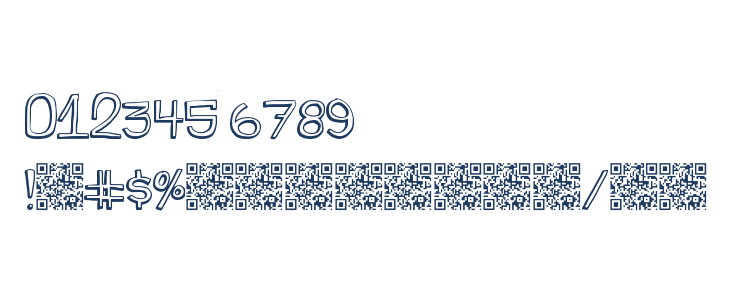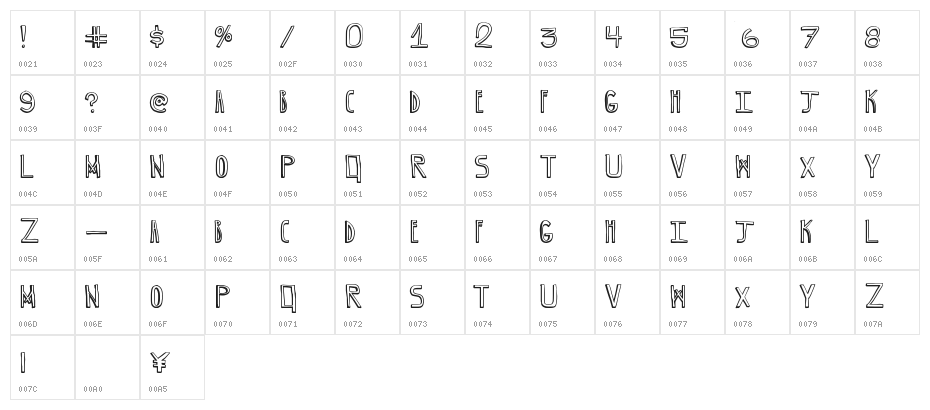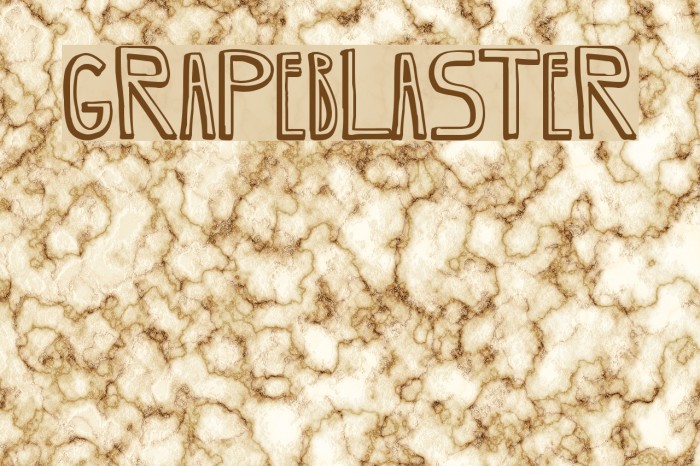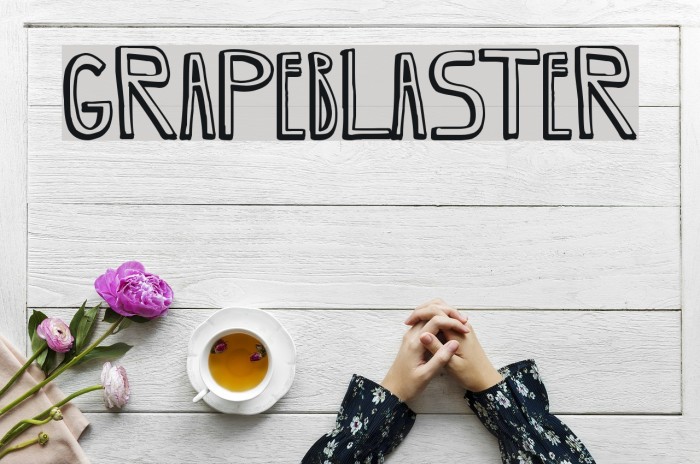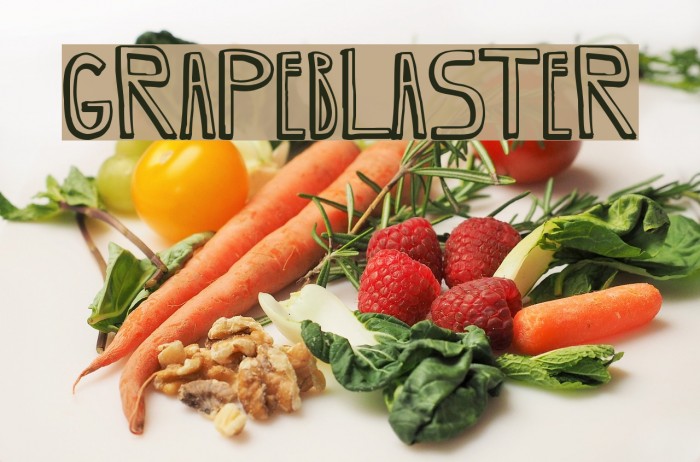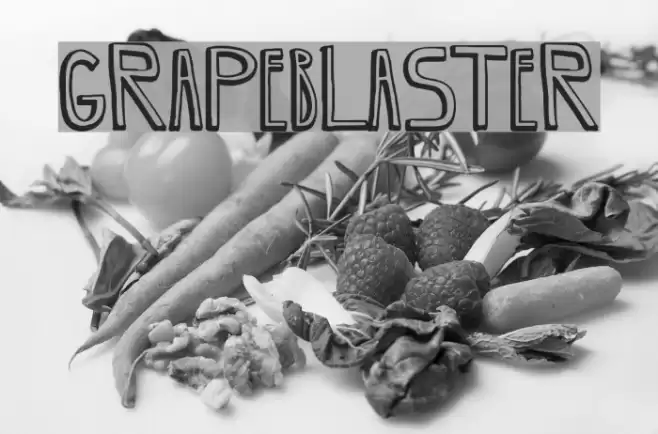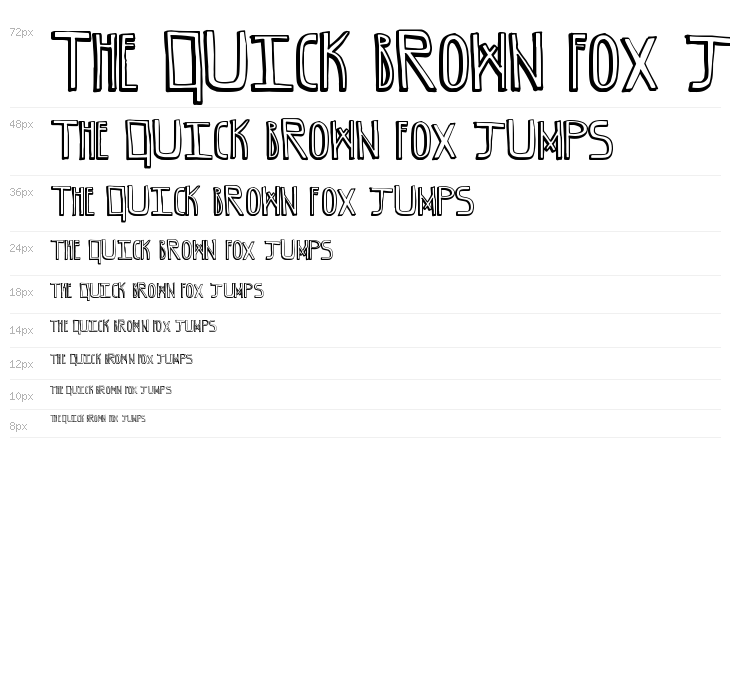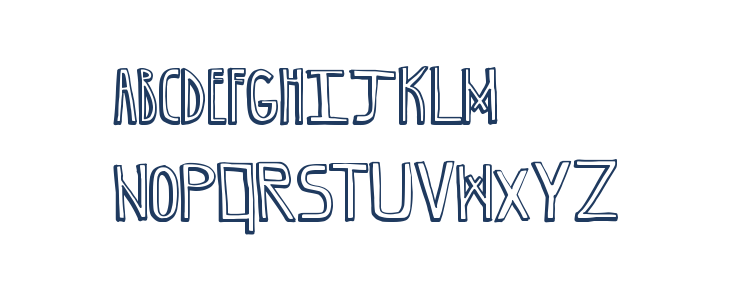
GrapeBlaster Font
GrapeBlaster Description
This font features a playful and quirky design with a hand-drawn aesthetic. Each character is outlined with a bold, uneven stroke, giving it a casual and informal appearance. The uppercase and lowercase letters maintain a consistent style, with some characters exhibiting unique and creative variations, such as the letter 'W' which appears with an overlapping design. The numbers and special characters follow the same whimsical style, making the font suitable for creative and fun projects. The overall look is reminiscent of doodles or sketches, adding a personal touch to any design.
| Overall Style | Playful, Quirky, Hand-drawn |
| Proposed Projects | Ideal for children's books, comic strips, playful branding, and informal invitations. |